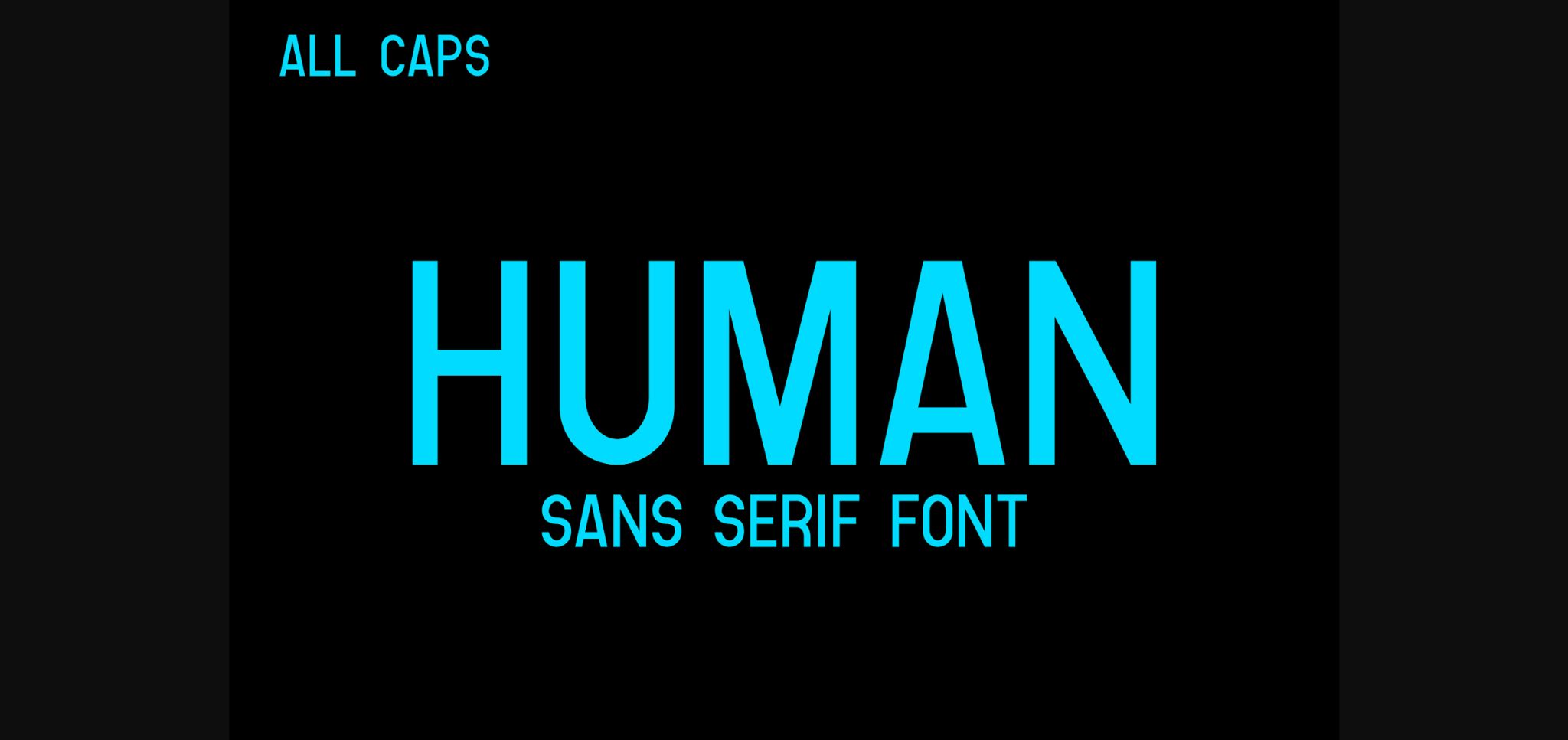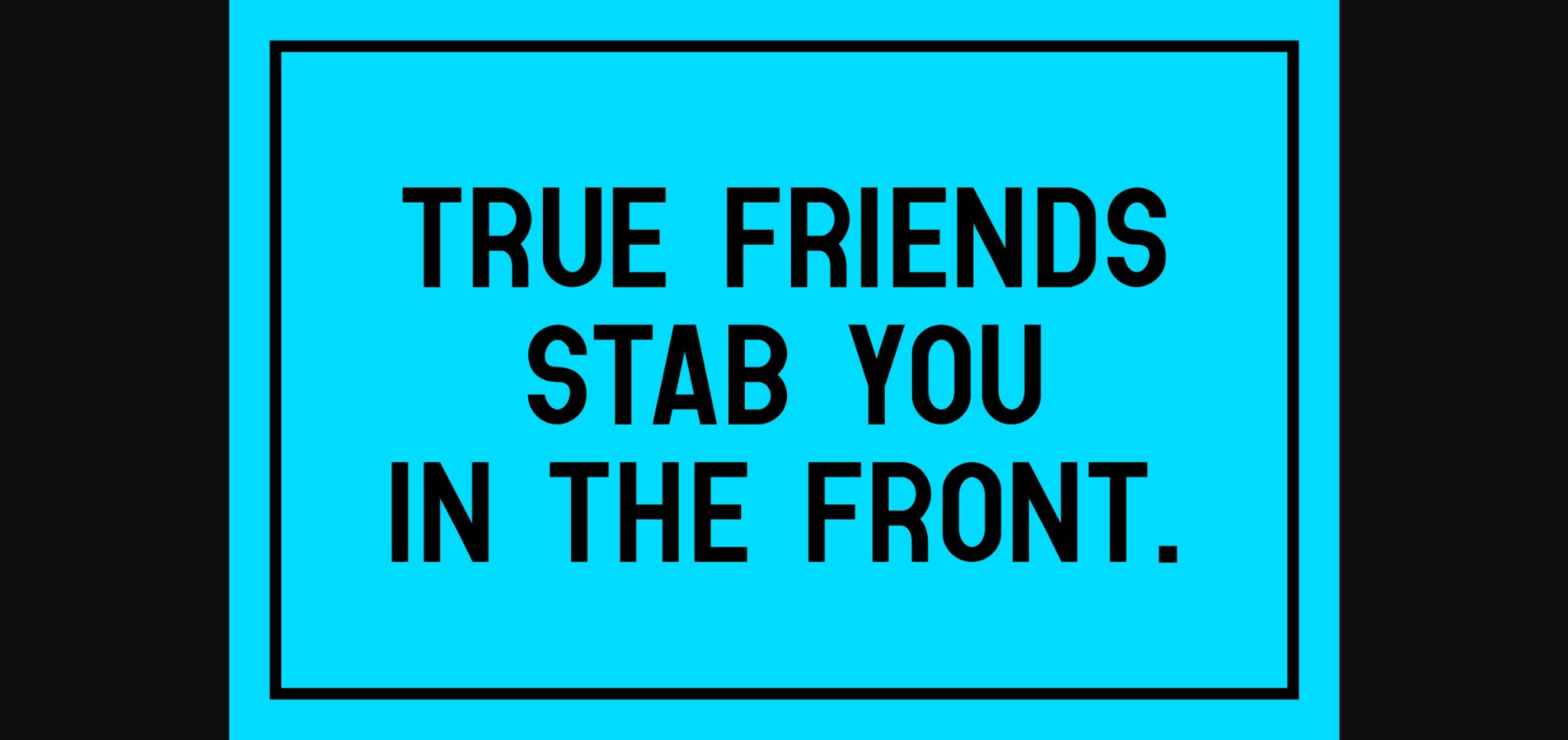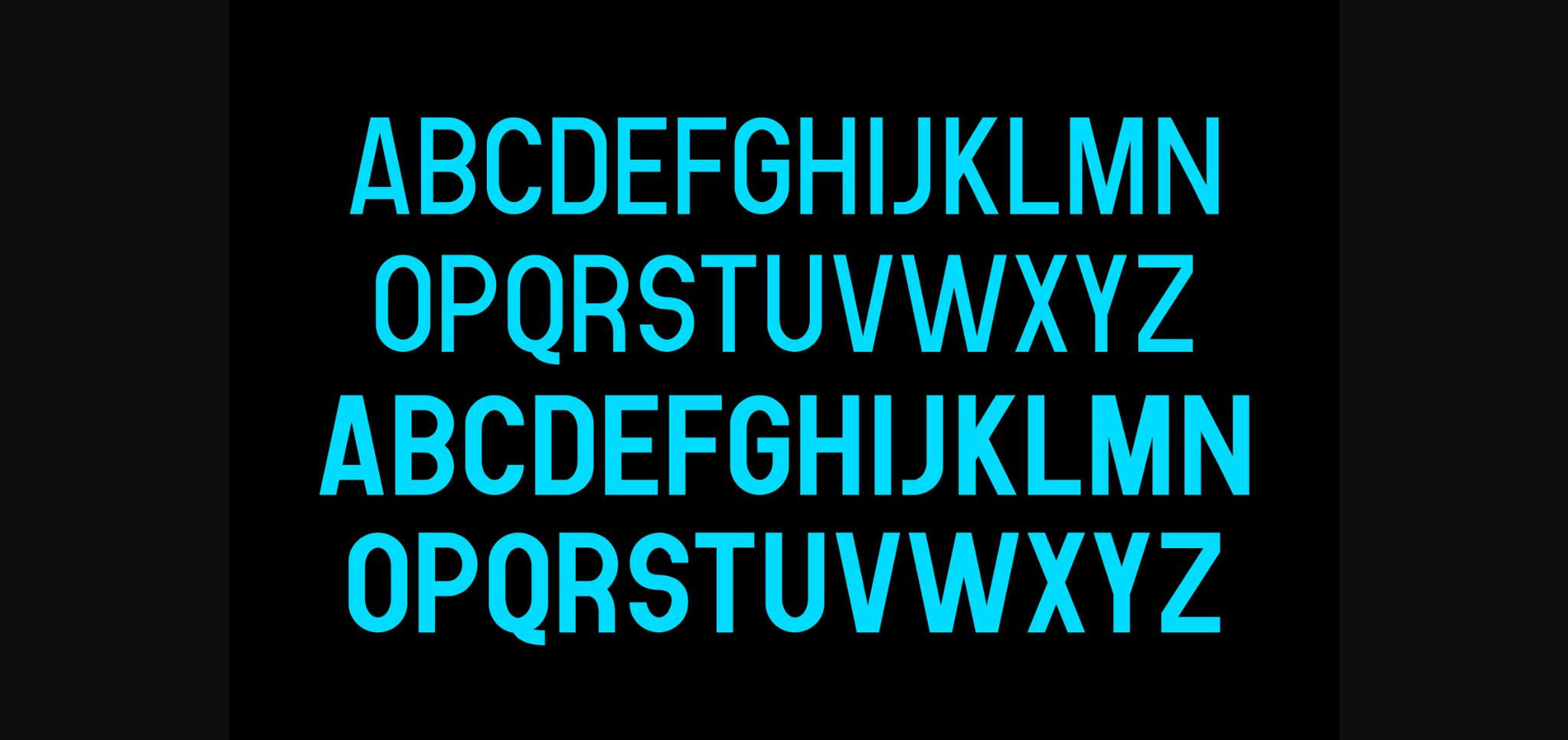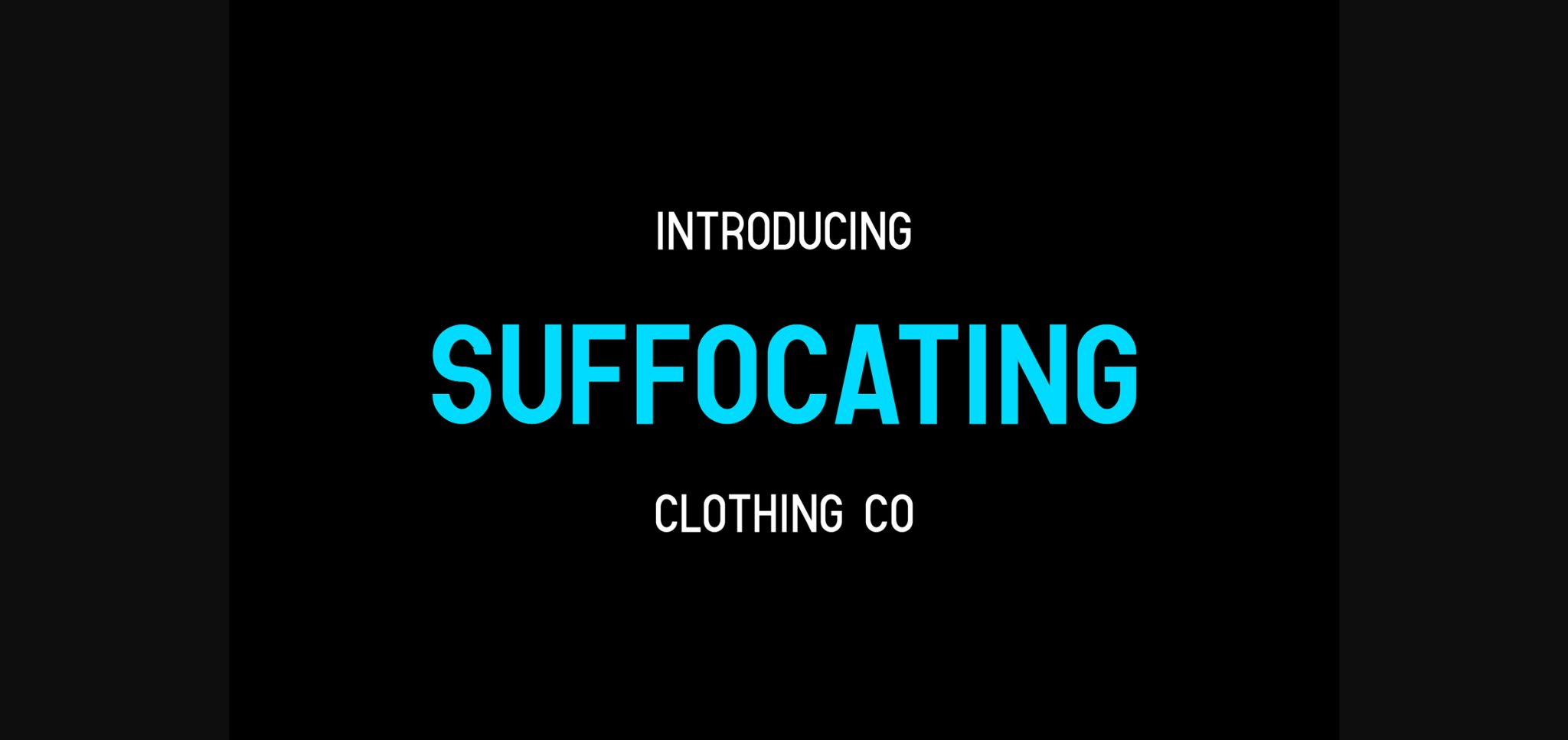
Human is a neat, clean and simple sans serif font that can easily fit into any project idea. Add it to your design project, and see how it can impact your creations.